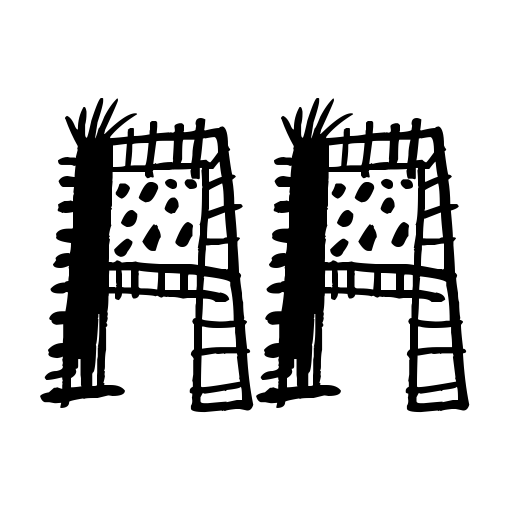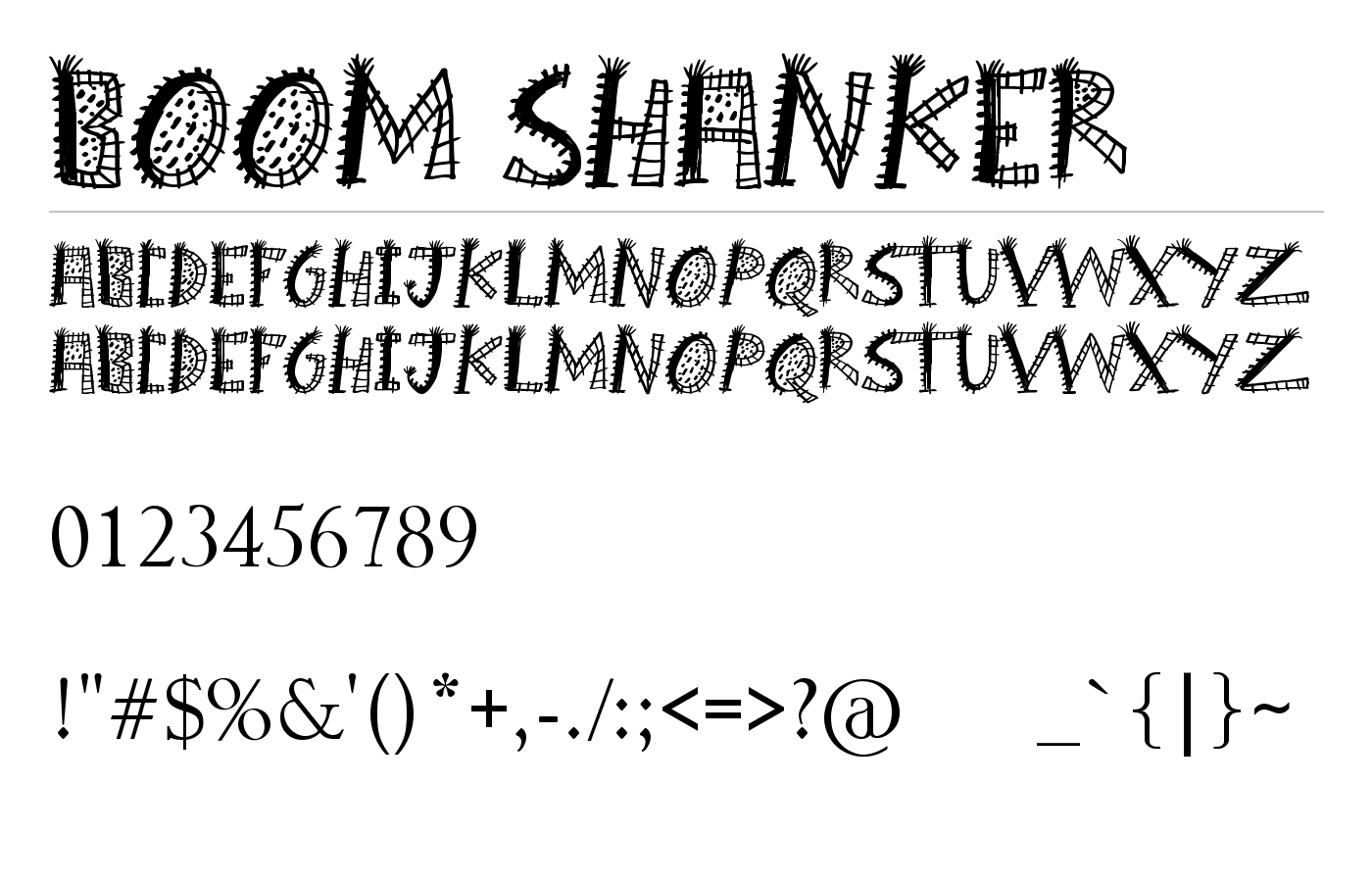
Boom Shanker is a playful and quirky sans serif display font characterized by its hand-drawn, rough-edged letterforms with uneven strokes and decorative stitching details. Its whimsical style and irregular shapes make it perfect for fun, creative projects like posters, children's books, and casual branding where a unique, informal vibe is desired. This font stands out best in headlines or titles rather than body text due to its distinctive, eye-catching design.
Boom Shanker Font
About Boom Shanker Font